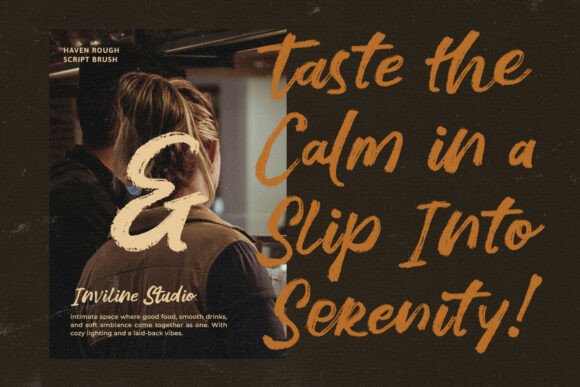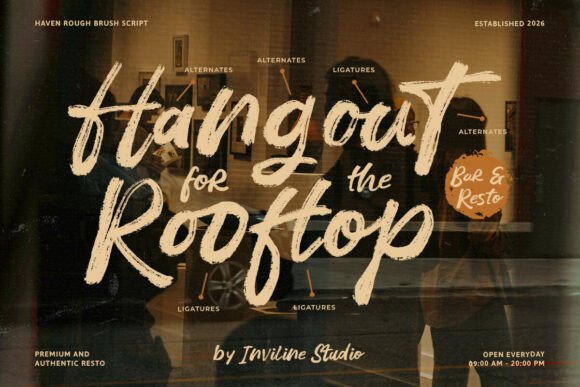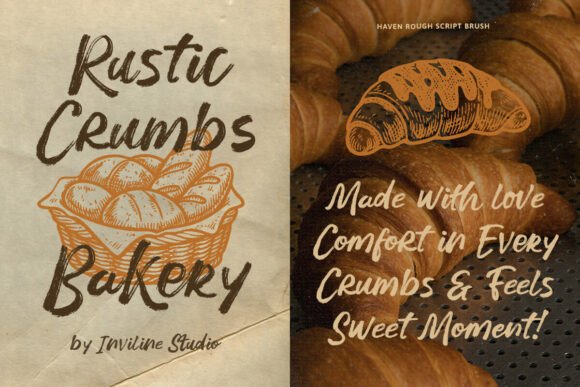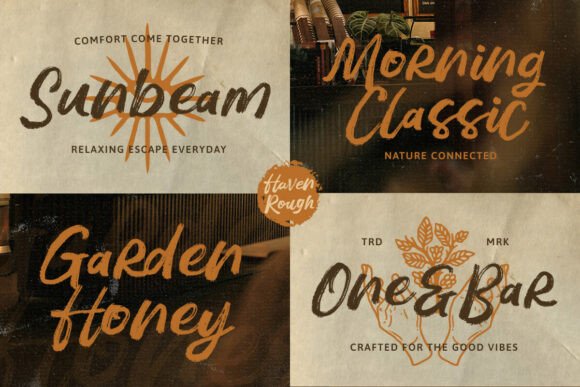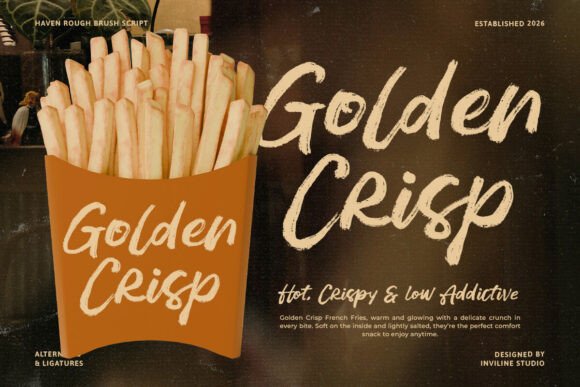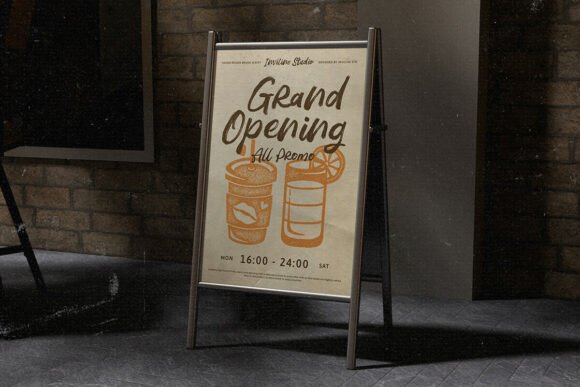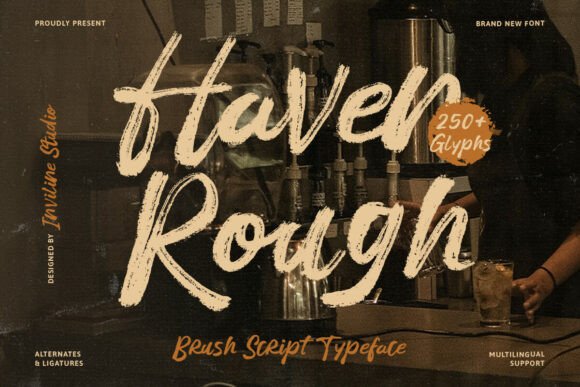
Unveiling Haven Rough: The Handcrafted Brush Script Typeface
In the realm of typography, few fonts manage to capture the essence of artisanal skill and genuine handcrafted charm. Haven Rough, a brush script typeface meticulously crafted by Inviline Studio, stands out as a beacon of uniqueness, boasting a character that polished typefaces simply can’t replicate. This font is not just a collection of letters; it’s an experience, imbuing every word with a bespoke touch that’s reminiscent of a painter’s delicate strokes on a canvas.
The Genesis of Haven Rough
Haven Rough is born from the authenticity of wild brush strokes, offering a font that exudes an organic, hand-painted ambiance. Every letterform has been carefully sculpted to reflect the imperfections and beauty of handmade craftsmanship. This process ensures that each character is not only unique but also carries a story of its creation, making it an invaluable asset for designers seeking to infuse their projects with a personal touch.
Applications of Haven Rough
The versatility of Haven Rough makes it an ideal choice for a myriad of design applications. For the intimate cafe looking to establish a brand identity that speaks of warmth and personal connection, Haven Rough offers a typographic solution that’s both inviting and distinctive. Similarly, rustic bakery packaging can benefit from this font’s rugged charm, creating a visual identity that’s both earthy and appealing. Moreover, for those crafting attention-arresting posters for an imminent launch, Haven Rough provides the perfect blend of boldness and elegance, ensuring the message not only grabs attention but also leaves a lasting impression.
Key Features of Haven Rough
• Authentic Handcrafted Feel: With its roots in genuine brush strokes, Haven Rough brings a handmade feel to the digital world, making it perfect for designers and crafters looking for a personal touch.
• Comprehensive Character Set: The font includes more than 250 expertly-designed glyphs and stylistic alternatives, offering a wide array of characters to suit various design needs.
• PUA Encoding: For ease of use, Haven Rough comes with PUA encoding, ensuring that no special software is required for use across different platforms.
Why Choose Haven Rough?
In today’s design landscape, standing out is more crucial than ever. Haven Rough offers a distinct personality, soul, and the much-sought-after handmade feel that contemporary audiences crave. Its rugged borders, natural progression, and energetic brush strokes lend every word a unique character, as if each was painted specifically for the project at hand. By choosing Haven Rough, designers and crafters can elevate their work, adding a layer of authenticity and personal connection that mass-produced typefaces fail to achieve.
Haven Rough is more than just a font; it’s a statement of craftsmanship, a celebration of the handmade, and a bridge between the traditional and the digital. Whether you’re a designer looking to add a personal touch to your projects or a crafter seeking to infuse your work with authenticity, Haven Rough is an invaluable resource. Its unique blend of rugged charm and elegance makes it an ideal choice for a wide range of applications, from branding and packaging to posters and digital media. Experience the difference that handcrafted typography can make with Haven Rough.